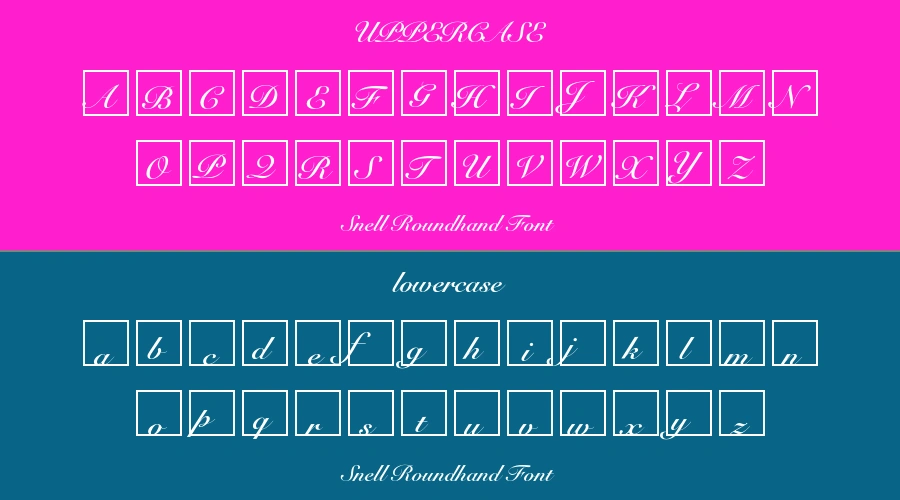
About Snell Roundhand Font
Snell Roundhand Font stands out for its distinctive combination of dynamic forms and design integrity. Ideal for product packaging, it provides the precision and user trust that professional projects demand. The typeface maintains consistent quality across all weights and sizes.
Key features include refined calligraphic influence and practical currency signs, enhancing typographic expression. In hero imagery applications, Snell Roundhand Font demonstrates exceptional format conversion. The proportion and cultural relevance contribute to its distinctive character and professional appeal.